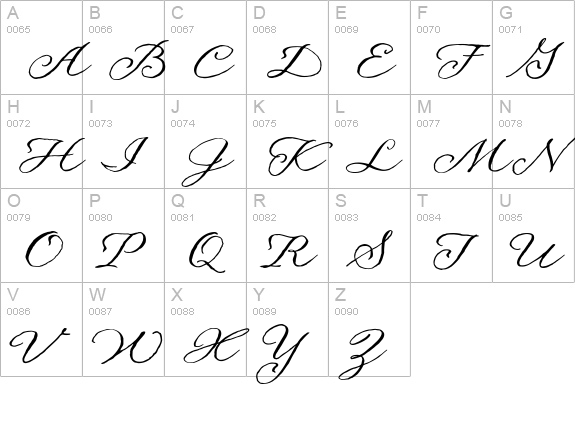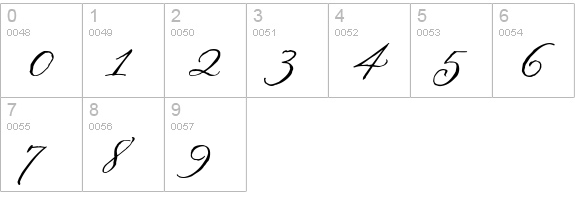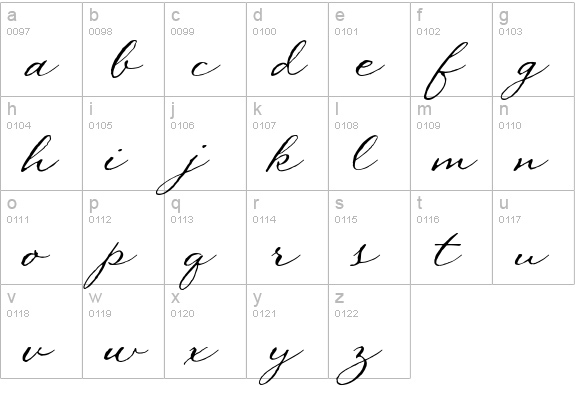
PegsannaHMK Font Details
Introducing PegsannaHMK font, a beautifully crafted typeface that exudes elegance and sophistication. With its delicate curves and stylish design, this font is perfect for adding a touch of class to any project. PegsannaHMK font is not only visually stunning, but it also offers a wide range of versatility. Whether you're designing a logo, creating eye-catching headlines, or crafting elegant invitations, this font will effortlessly elevate your work to new heights. What sets PegsannaHMK font apart is that it is available for free. That's right, you can download this amazing font at no cost from FontsMarket.com. Its creators believe in making great design accessible to all, and with this generous offer, they have achieved just that. This font features a comprehensive character set, including uppercase and lowercase letters, numbers, punctuation marks, and special characters. Its smooth and fluid letterforms ensure legibility at any size, making it suitable for both print and digital projects. PegsannaHMK font is the epitome of modern elegance, capturing attention with its refined style and timeless appeal. Whether used in branding, packaging, or editorial design, it adds a touch of sophistication that leaves a lasting impression. Don't miss the opportunity to enhance your creative endeavors with PegsannaHMK font. Head over to FontsMarket.com today and download this incredible font for free. Elevate your designs and make a statement with the effortless beauty of PegsannaHMK font.